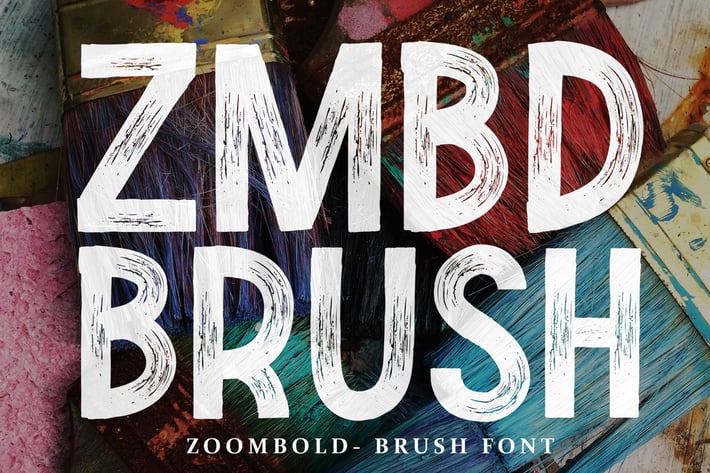
Zoombold Brush Font
Zoombold is modern vontage font. This is multi purpose font, very good for any advertisement and packaging, or apparel/fashion, and specially for any adventure design, sport, logo.